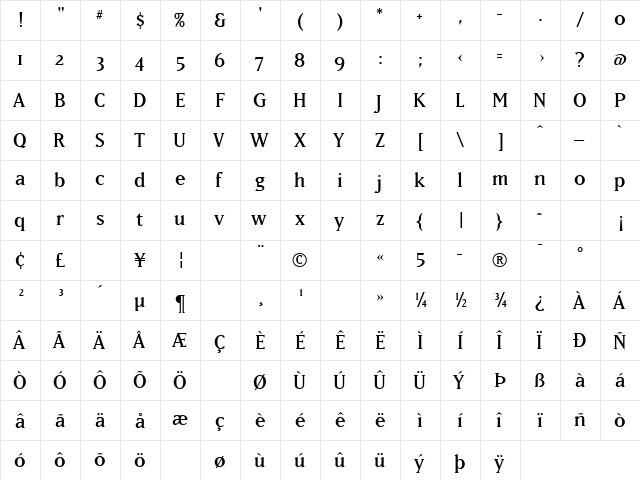
MatrixRegularOldstyle Regular
Design Context for MatrixRegularOldstyle Typeface
MatrixRegularOldstyle carries the refined structure of traditional serif typography, with bracketed terminals and considered proportions that communicate credibility and craft.